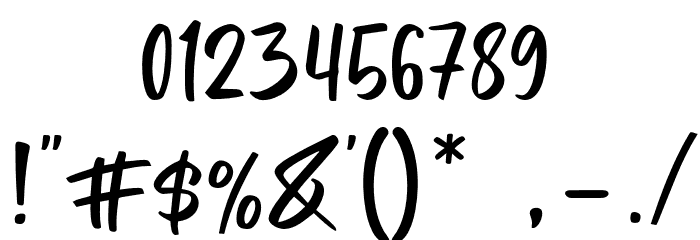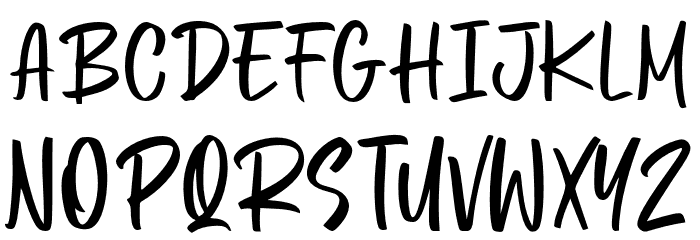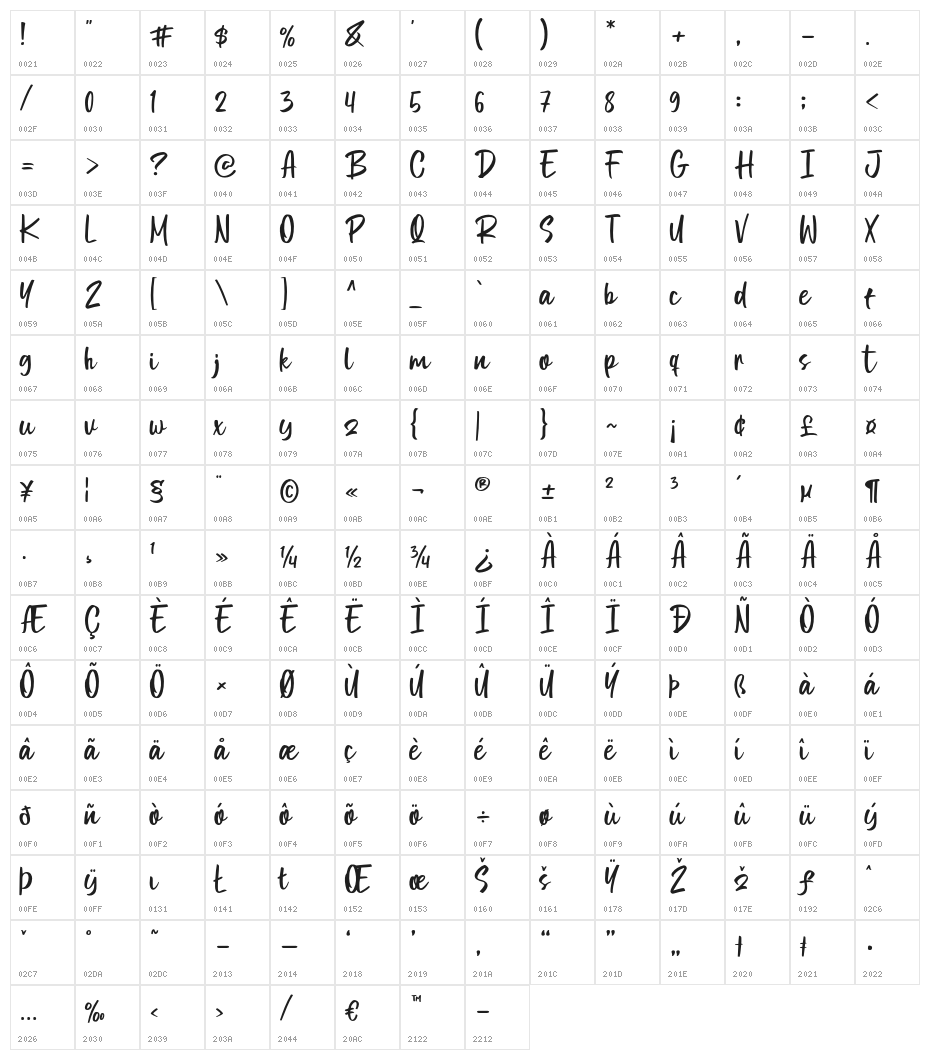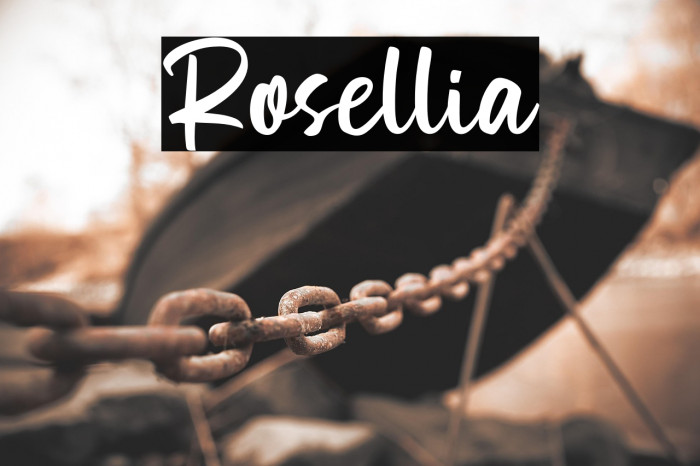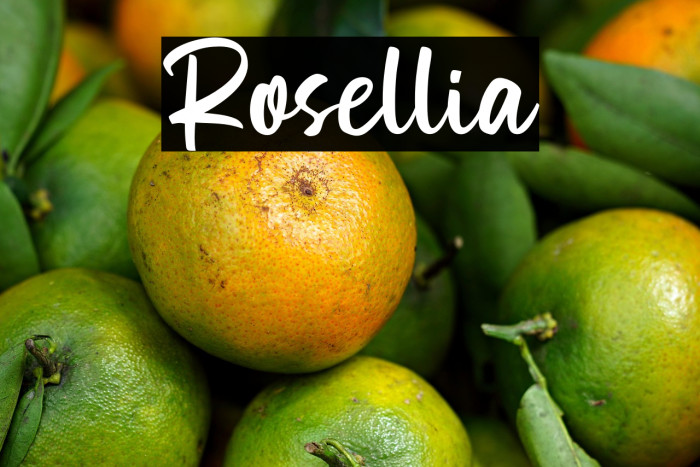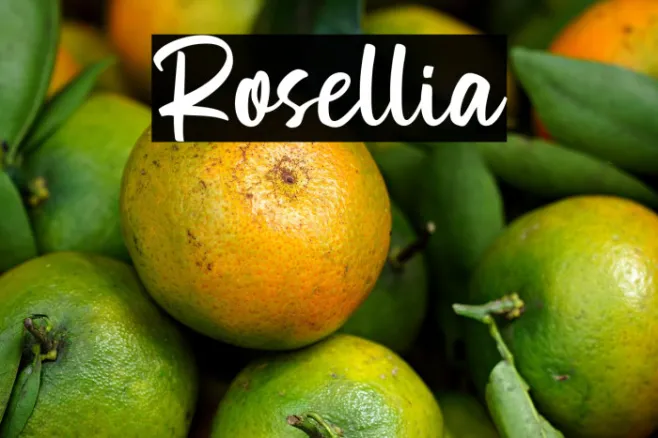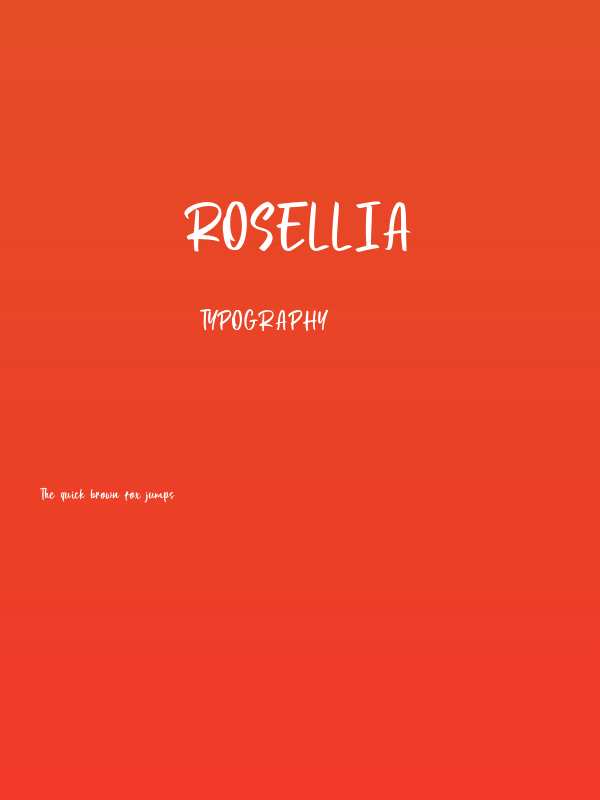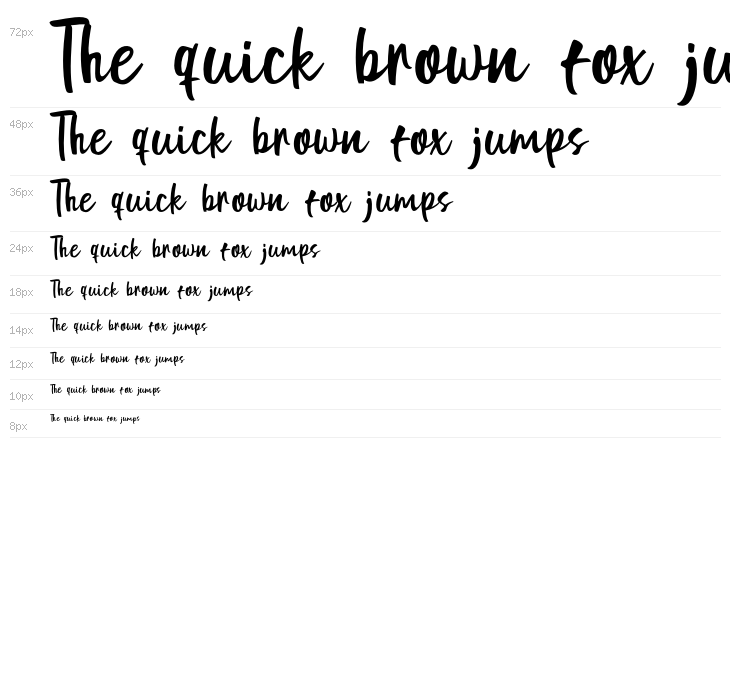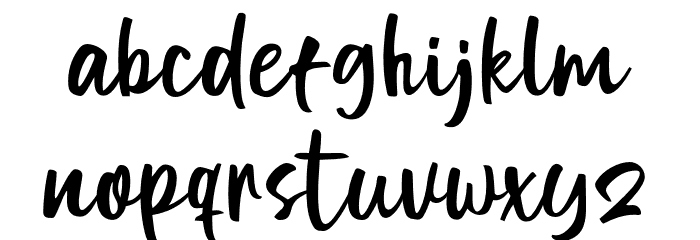
Rosellia Font
Rosellia Description
A playful and energetic handwritten font with a casual and friendly appearance.
| Overall Style | Casual |
| Use Case | Headlines, Logos |
| Proposed Projects | Greeting cards, invitations, social media graphics. |